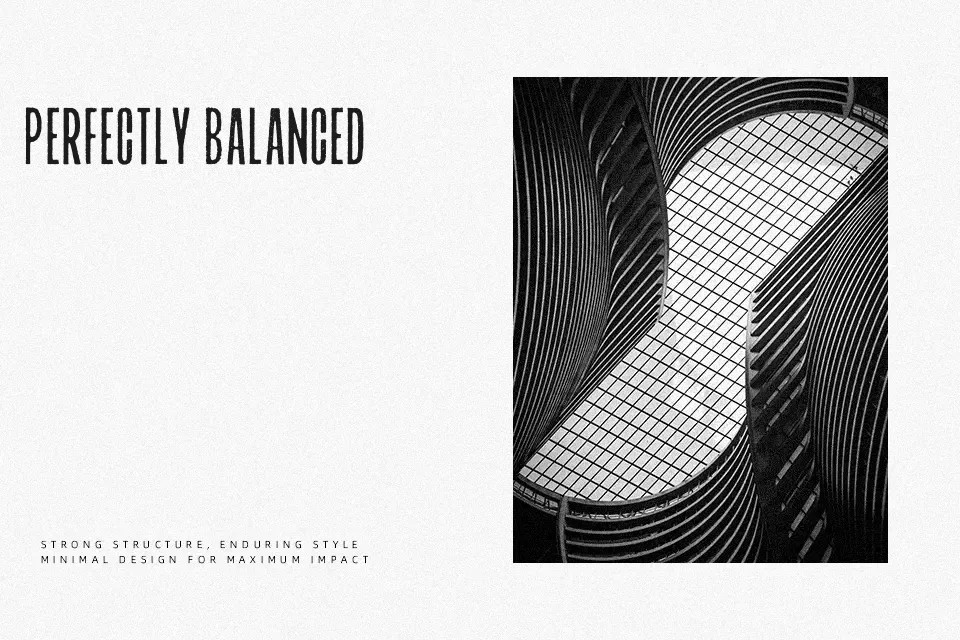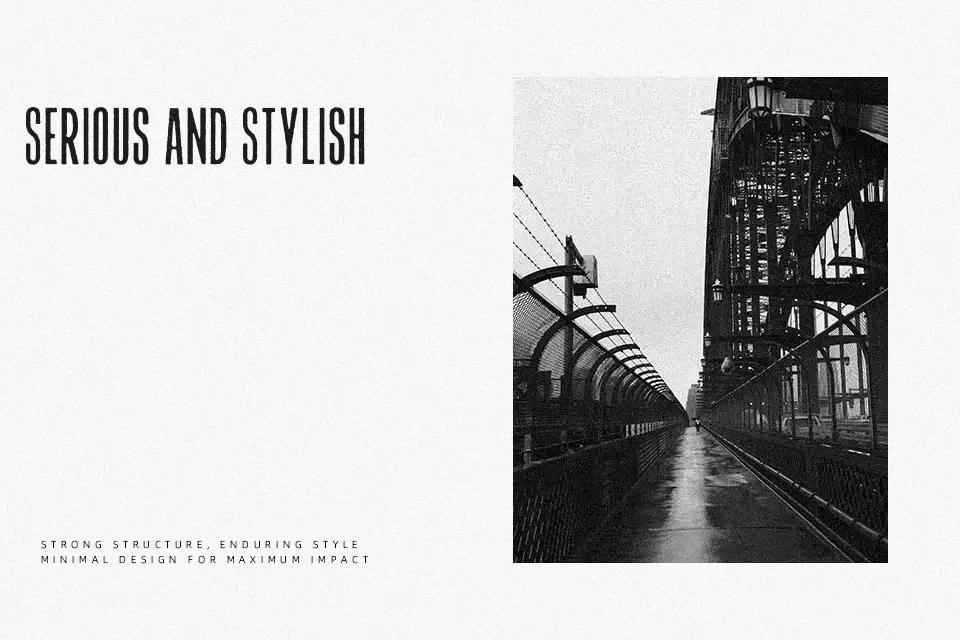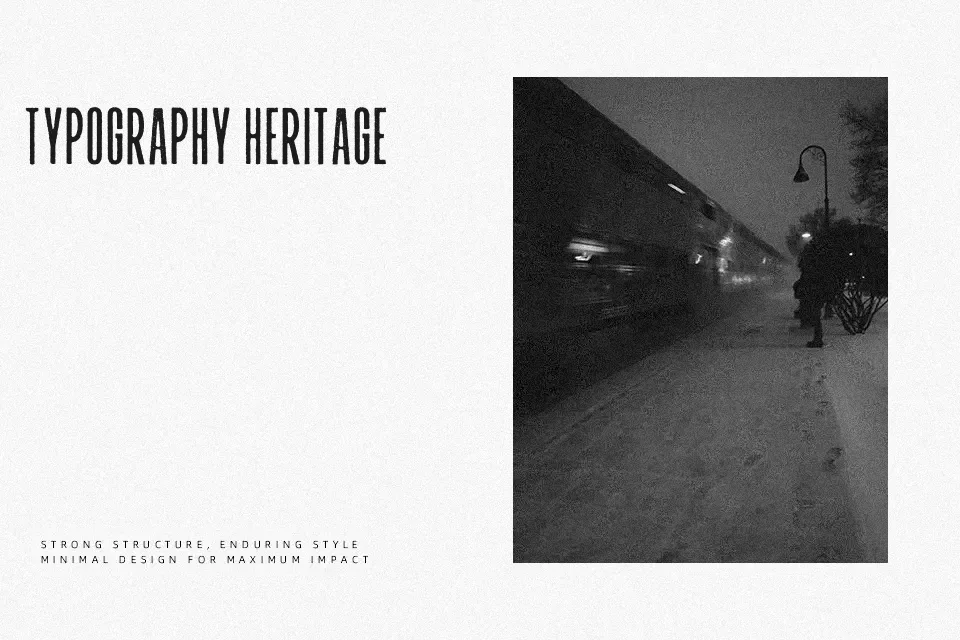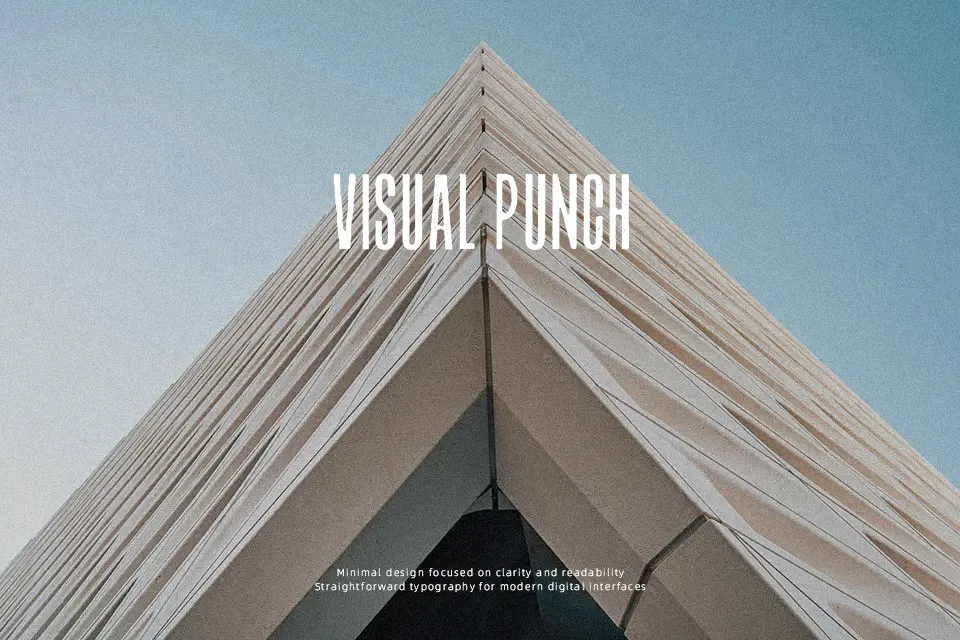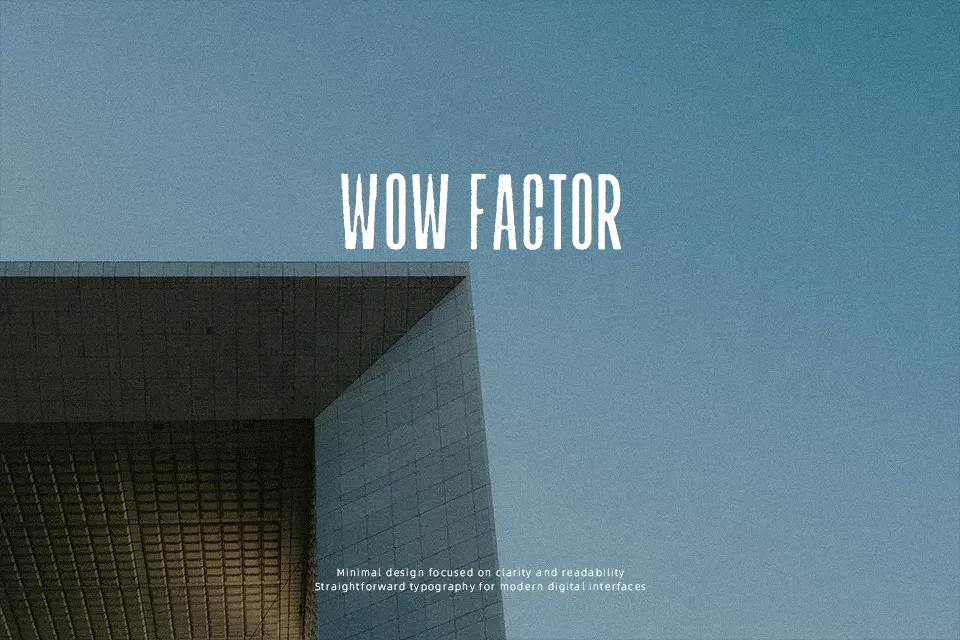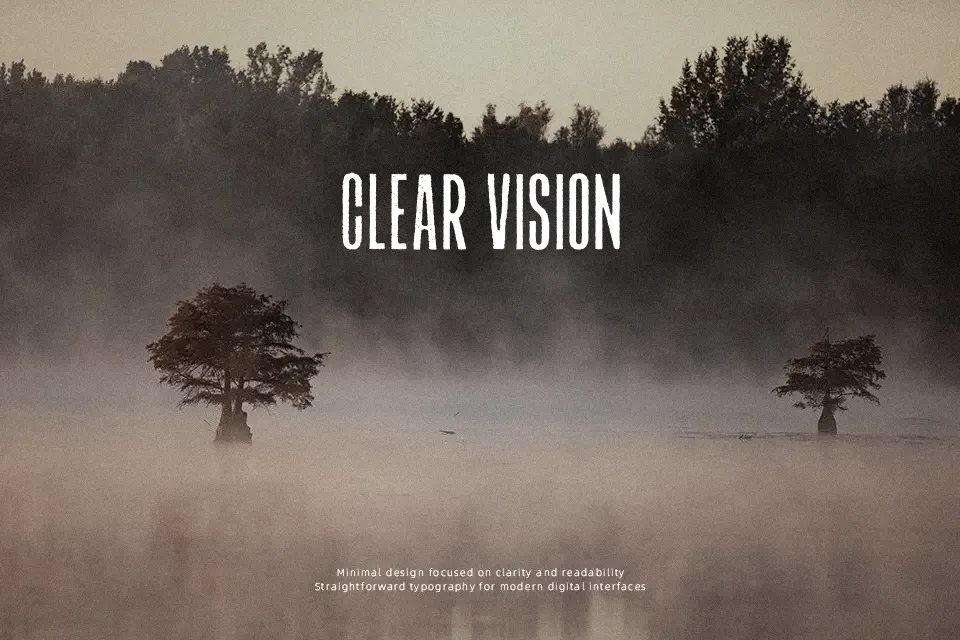
TC Headliner Rough Font
TC Headliner Rough Font commands attention through tall, condensed sans serif letterforms characterized by distressed contours and irregular edges. The tight character spacing pairs with uniform stroke weights, establishing a compact vertical rhythm that holds up remarkably well in prominent editorial titles. While the textured finish delivers authentic tactile punch at large scale, subtle edge wear deteriorates rapidly in small captions or compact mobile interfaces. Extended body copy quickly strains reading comfort due to the tight letter fit and heavy display proportions. This typeface functions best as a focused headline element across vintage apparel graphics, rustic food packaging, and bold event signage.
– craft brewery labels
– vintage event posters
– apparel graphic prints
– storefront banner headlines
– continuous paragraph reading
– mobile application interface text
– dense legal documents
– small tabular data
Perfect for branding, headline, and logo, with a bold and condensed style.